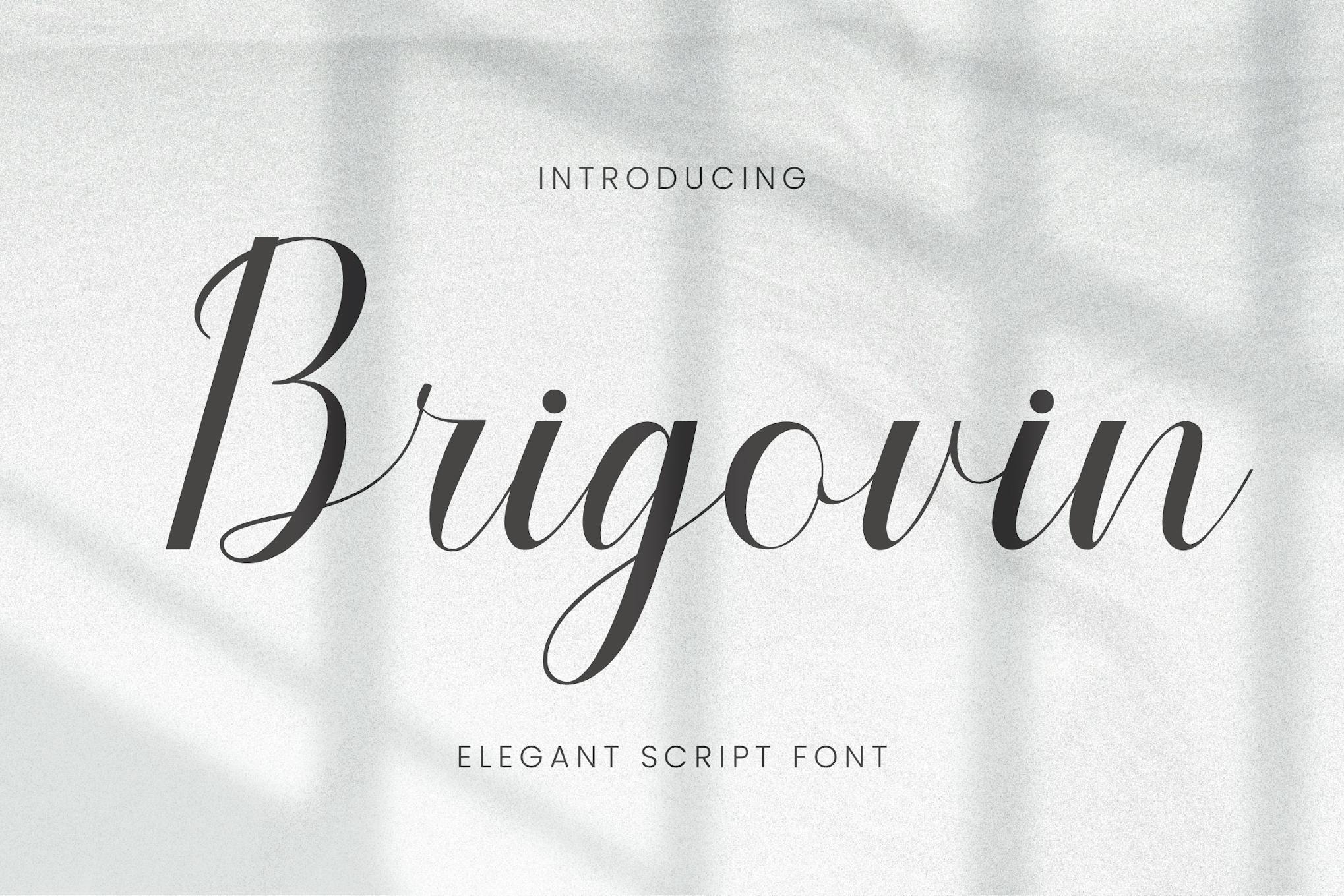
Brigovin - Luxury Script Font
Brigovin - Luxury Script Font is perfect for luxury branding, wedding invitations, high-end product packaging, boutique logos, premium restaurant menus, elegant business cards, fashion magazine headers, jewelry advertisements, spa and wellness branding, and sophisticated social media graphics.
What makes Brigovin - Luxury Script Font so exciting is its exceptional blend of classic elegance and modern sophistication. This luxurious typeface features flowing, hand-crafted letterforms with refined curves and distinctive character variations that immediately convey premium quality and exclusivity. The font's carefully balanced weight distribution and graceful ascenders create a sense of timeless beauty while maintaining excellent readability across various applications.
The Brigovin - Luxury Script Font family includes multiple weights and styles, typically featuring regular, bold, and italic variations. Many luxury script font families also offer additional ornamental elements, ligatures, and swash alternatives that enhance the overall design flexibility and allow designers to create truly unique typographic compositions.
The versatility of Brigovin - Luxury Script Font extends beyond traditional applications. Digital designers will find it exceptionally useful for creating compelling social media content, website headers, and email marketing campaigns that demand attention and convey premium positioning. The font's elegant characteristics make it particularly effective for industries such as fashion, beauty, hospitality, and lifestyle brands.
Professional designers appreciate how Brigovin - Luxury Script Font maintains its sophisticated appearance across different sizes and mediums. From large-scale billboard advertisements to delicate business card details, this typeface consistently delivers the luxury aesthetic that makes brands stand out in competitive markets.
The careful attention to detail in Brigovin - Luxury Script Font is evident in every character, making it an invaluable addition to any designer's font library. Its ability to transform ordinary text into extraordinary visual statements makes it indispensable for projects requiring that special touch of elegance and refinement.